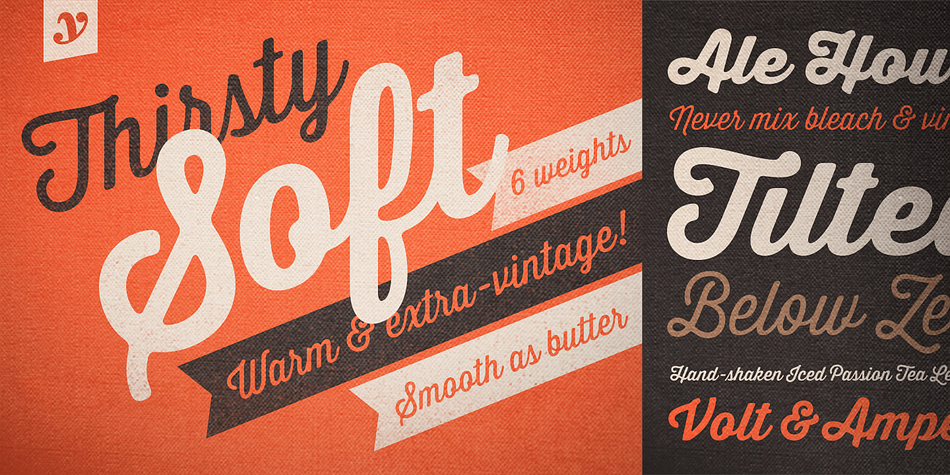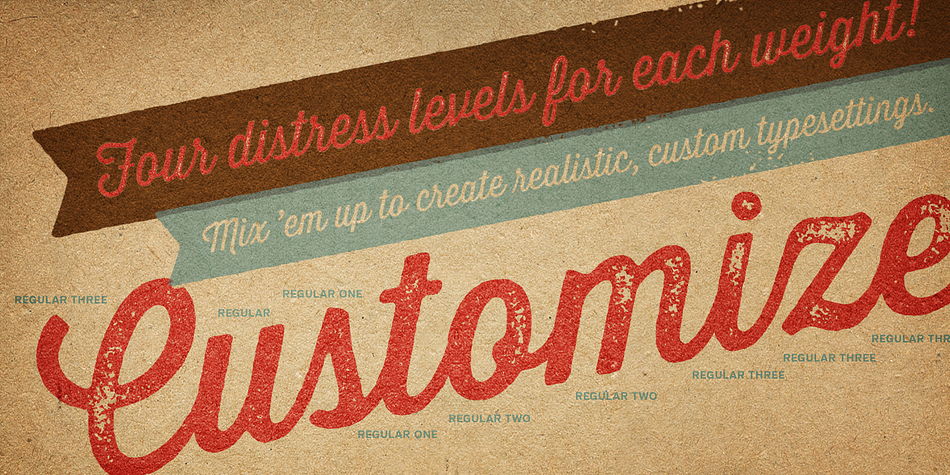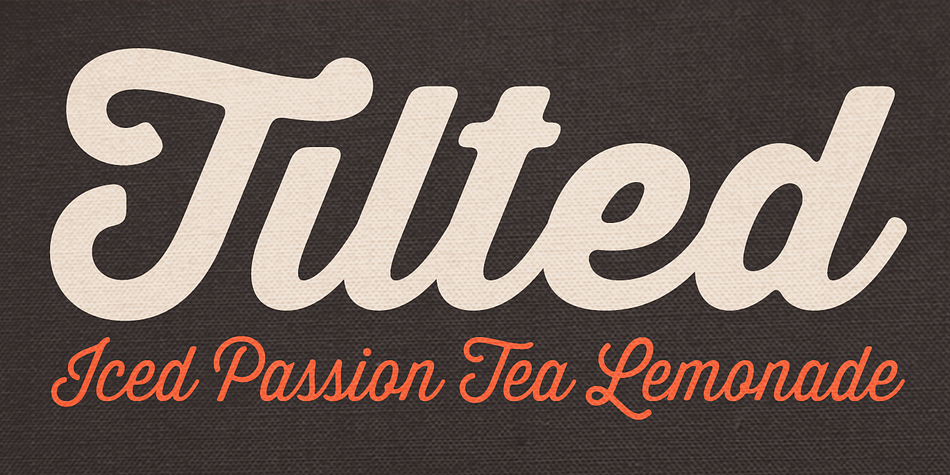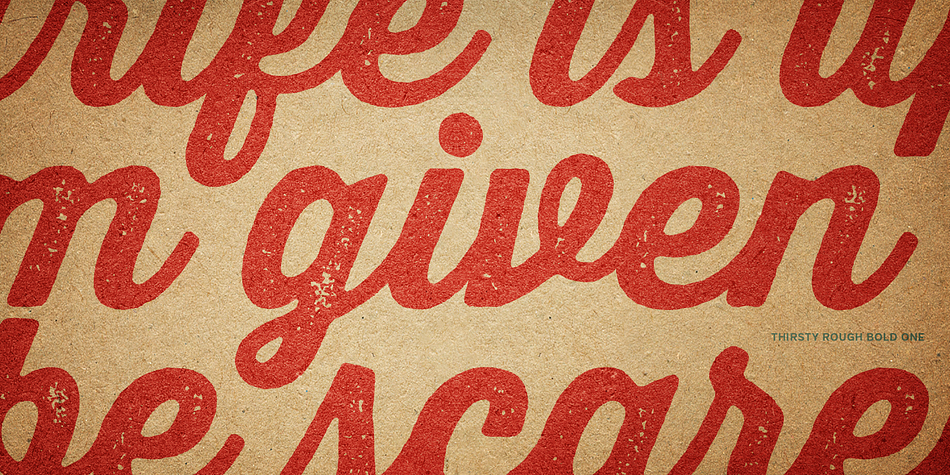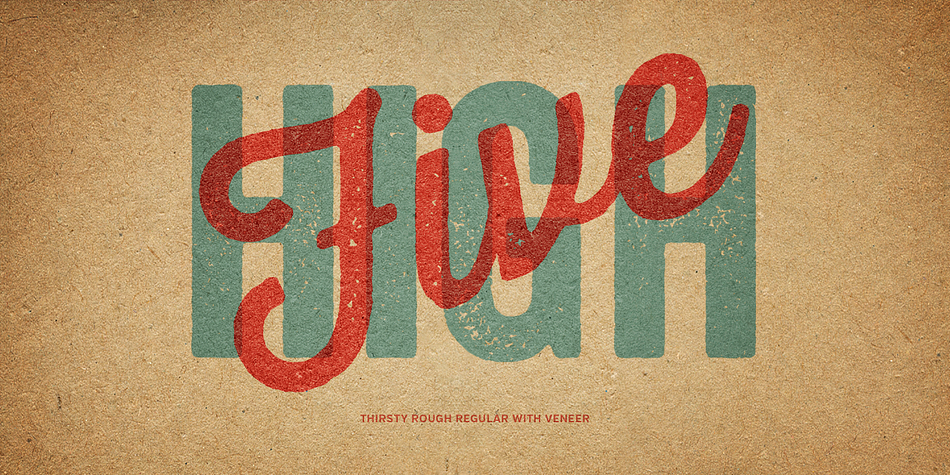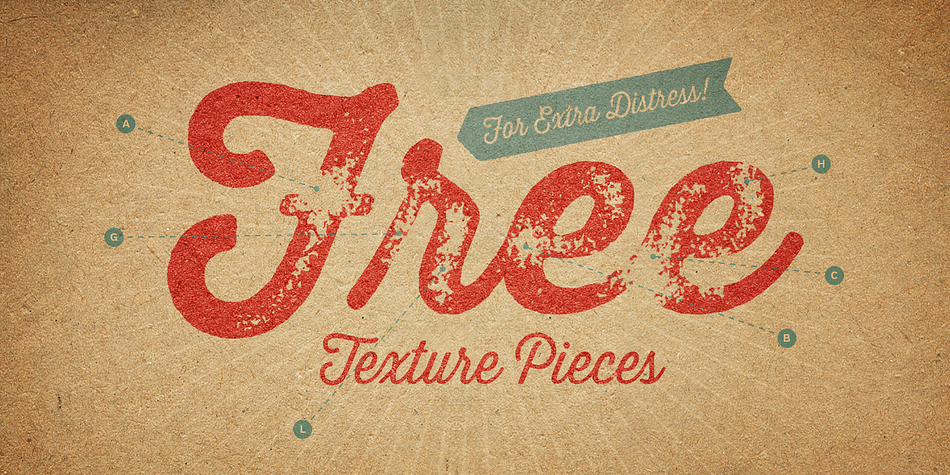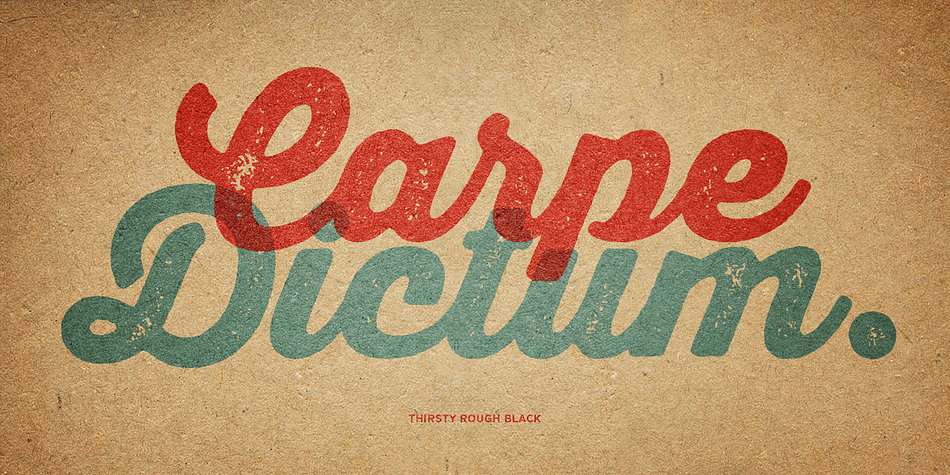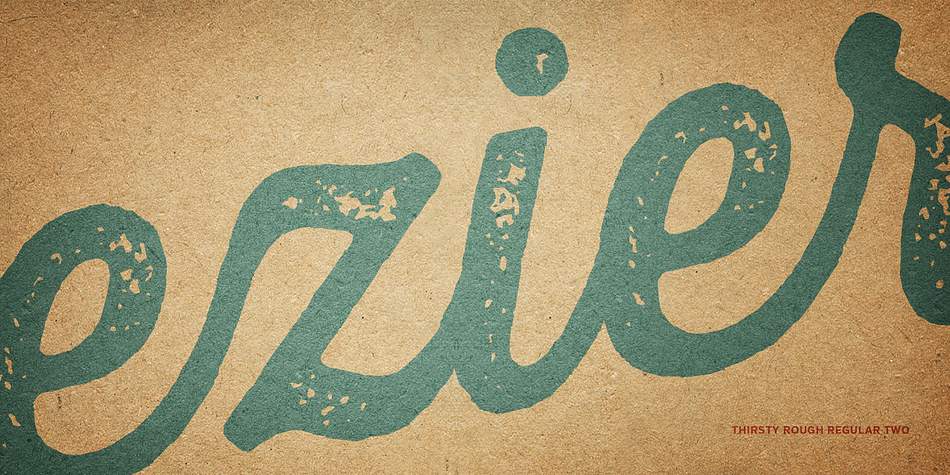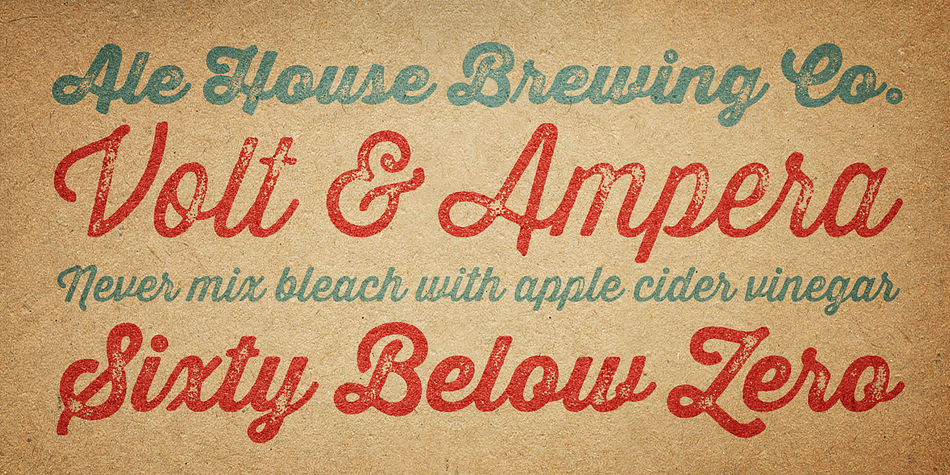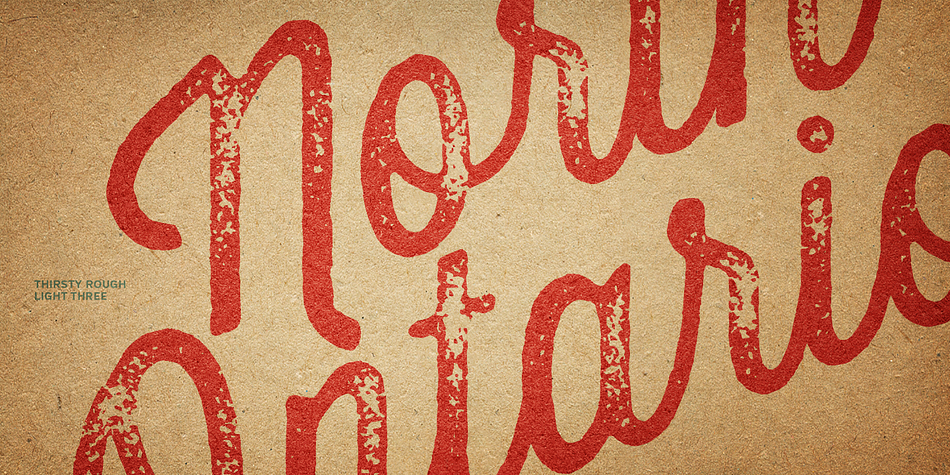
Thirsty Script + Rough + Soft Super Family
Thirsty Script + Rough + Soft is a brush script, grunge and dingbat font collection published by Yellow Design Studio.
While the original Thirsty Script has a caffeinated demeanor with sharp edges and pointed terminals, Thirsty Soft is warm and buttery smooth, adding friendliness and and extra level of vintage appeal.
Features include six weights from Light to Black, old-style figures, stem alternates (accessed by using the opentype feature "swash"), multiple language support, and a handy selection of ligatures and stylistic alternates.